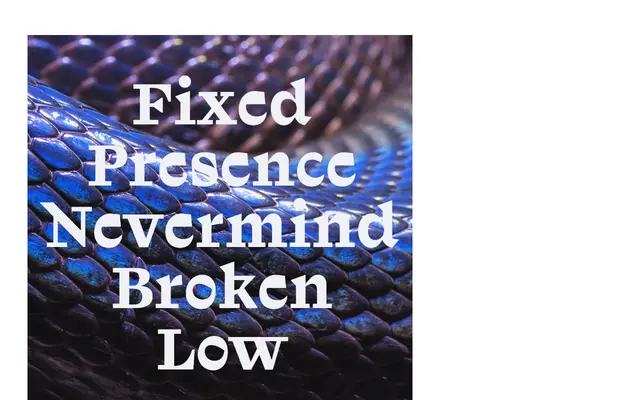
A deliberately contradictory slab serif that pairs soft curves with sharp spiky terminals, closed apertures and triangular serifs to produce an assertive, hedgehog-like headline face.
Token sets out to combine opposing impulses: the low contrast and softness of its curves sit against spiky pointed terminals, while stained, closed apertures in the 'a', 'e', 'V', 'W' and 'k' build dense, distinctive word shapes. Two subfamilies divide the family: Token Green carries the upright with its thorny hedgehog alternates, and Token Yellow is the italic, which draws on monospaced typewriter conventions for its wide straight stroke exits and closed serifs rather than following a calligraphic route. The result is a typeface that reads as a functional collision of geometric construction and raw, naive mark-making.
Described explicitly as a slab serif by the foundry, with geometric origins and sharp, spiky triangular serifs; the closed slab serifs, pointed terminals and mixed contrast place it firmly in the slab category with a highly idiosyncratic character.